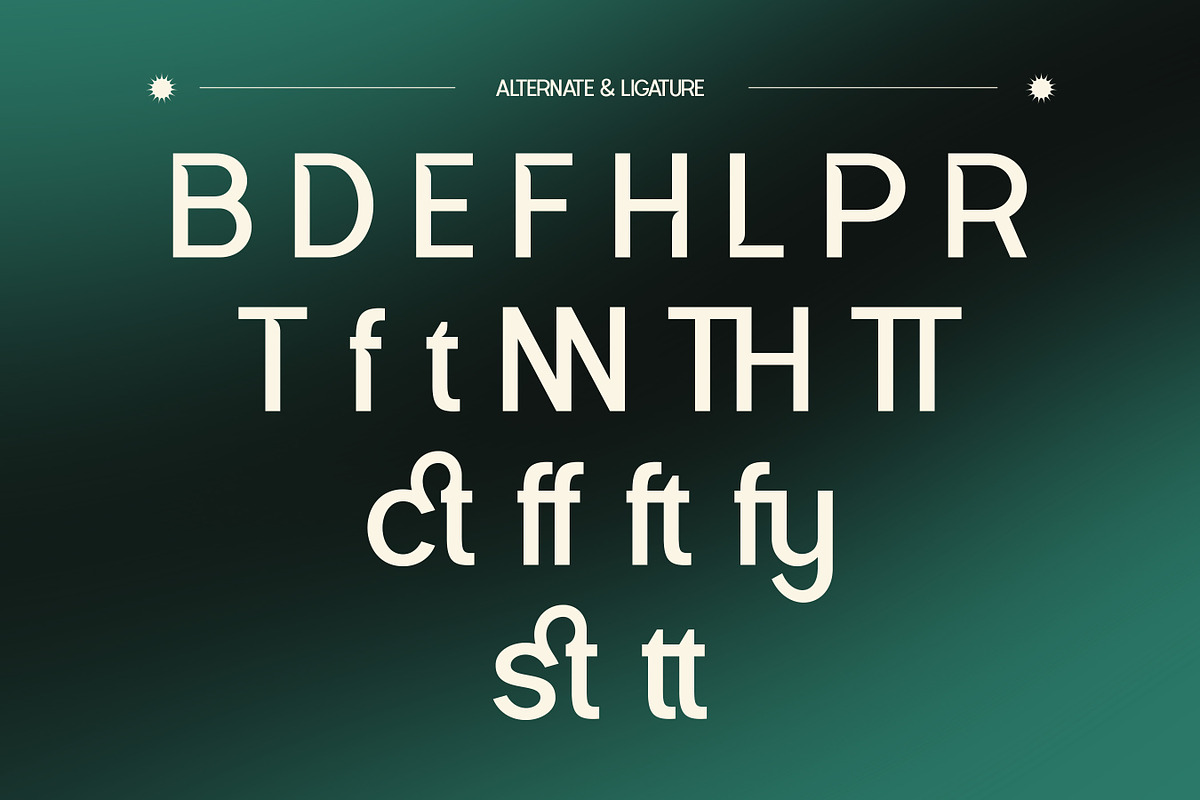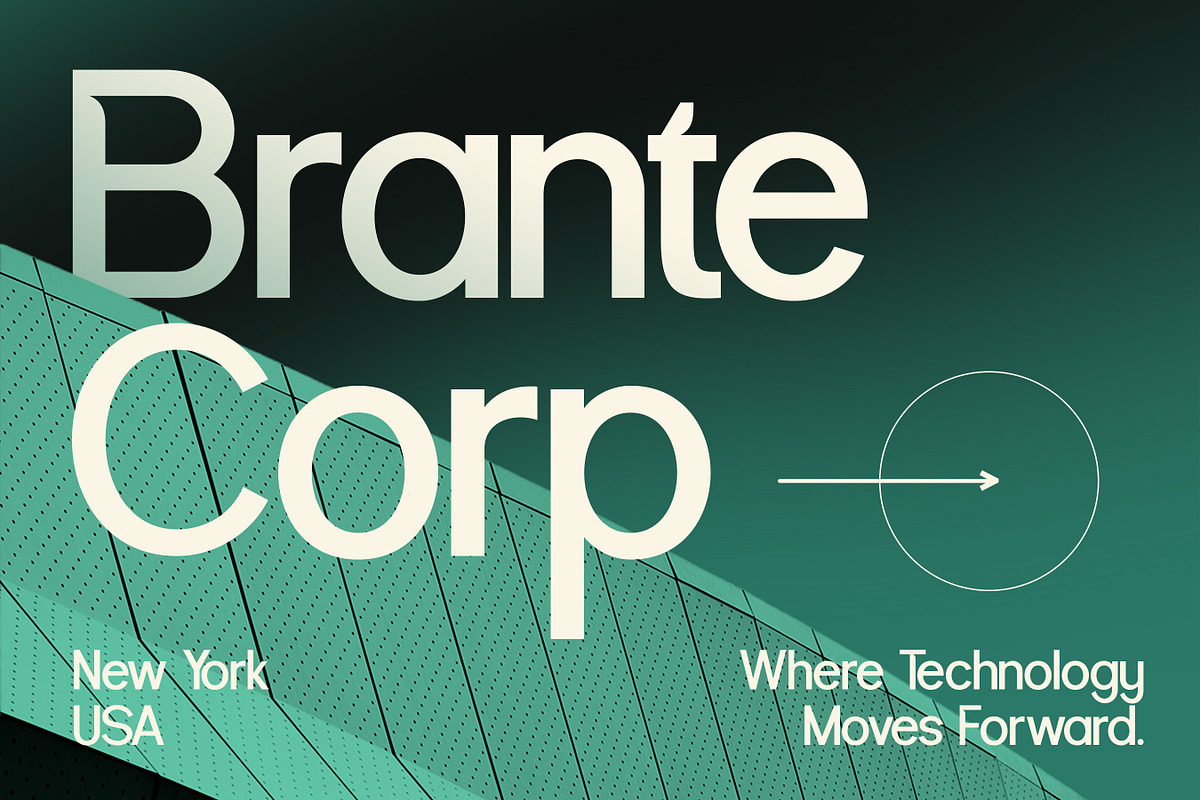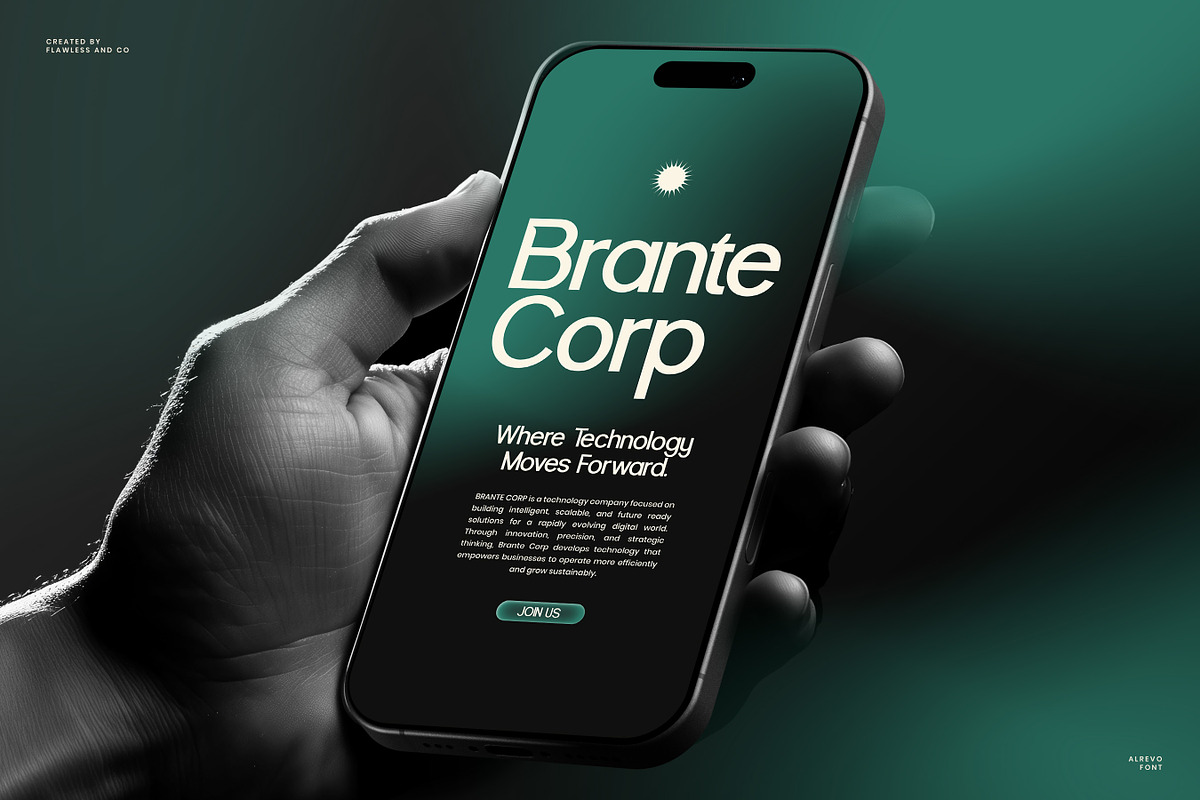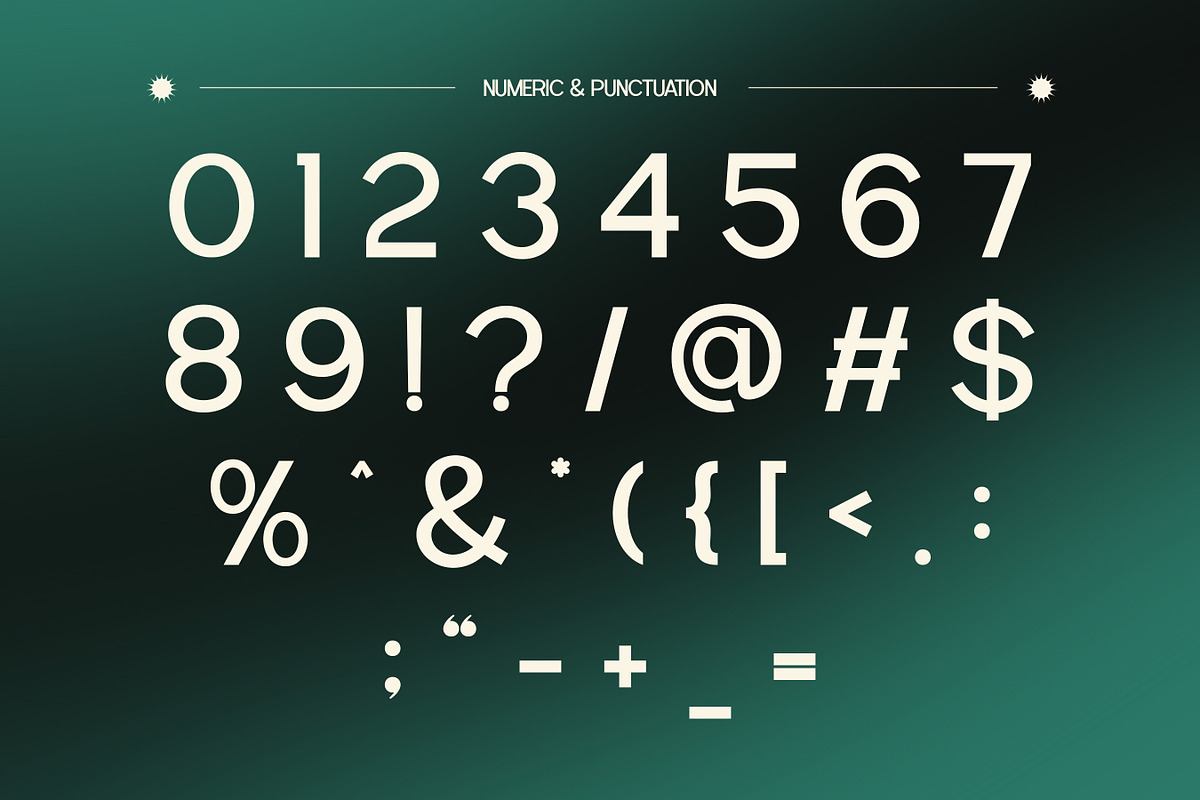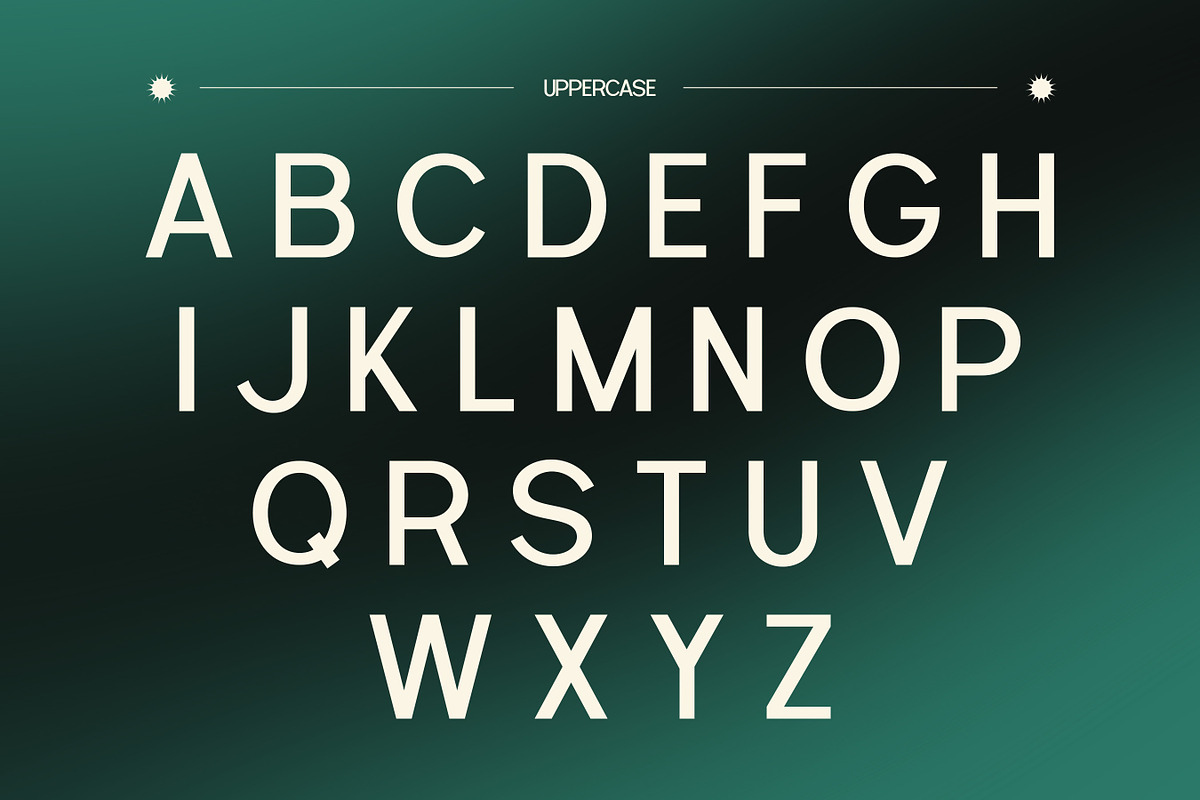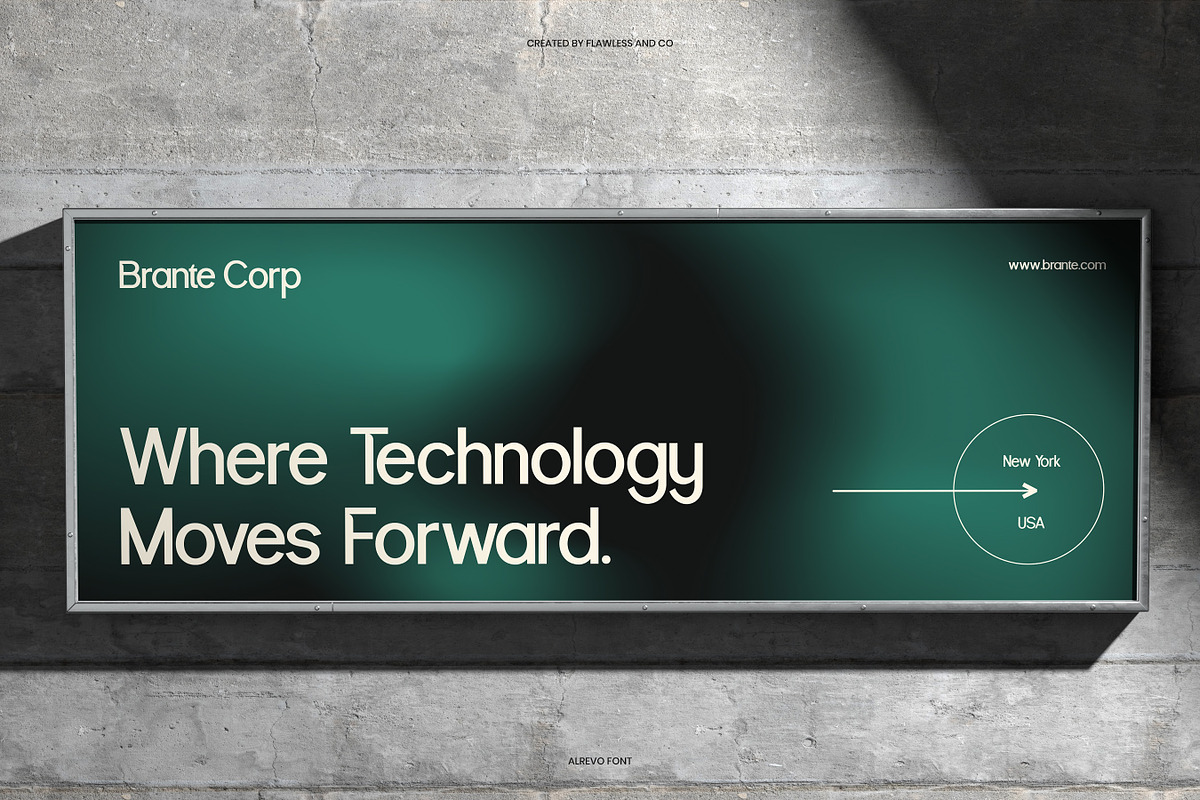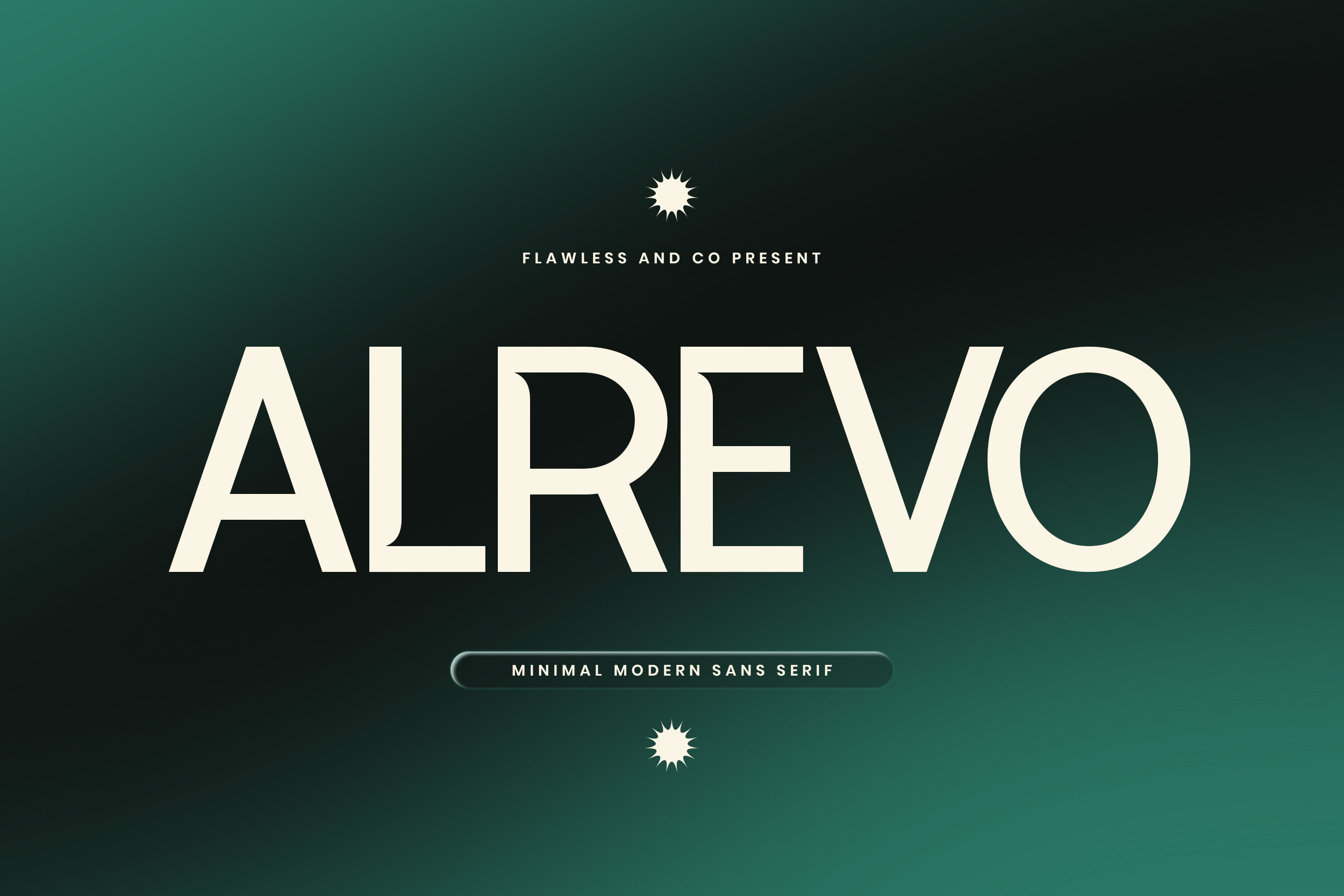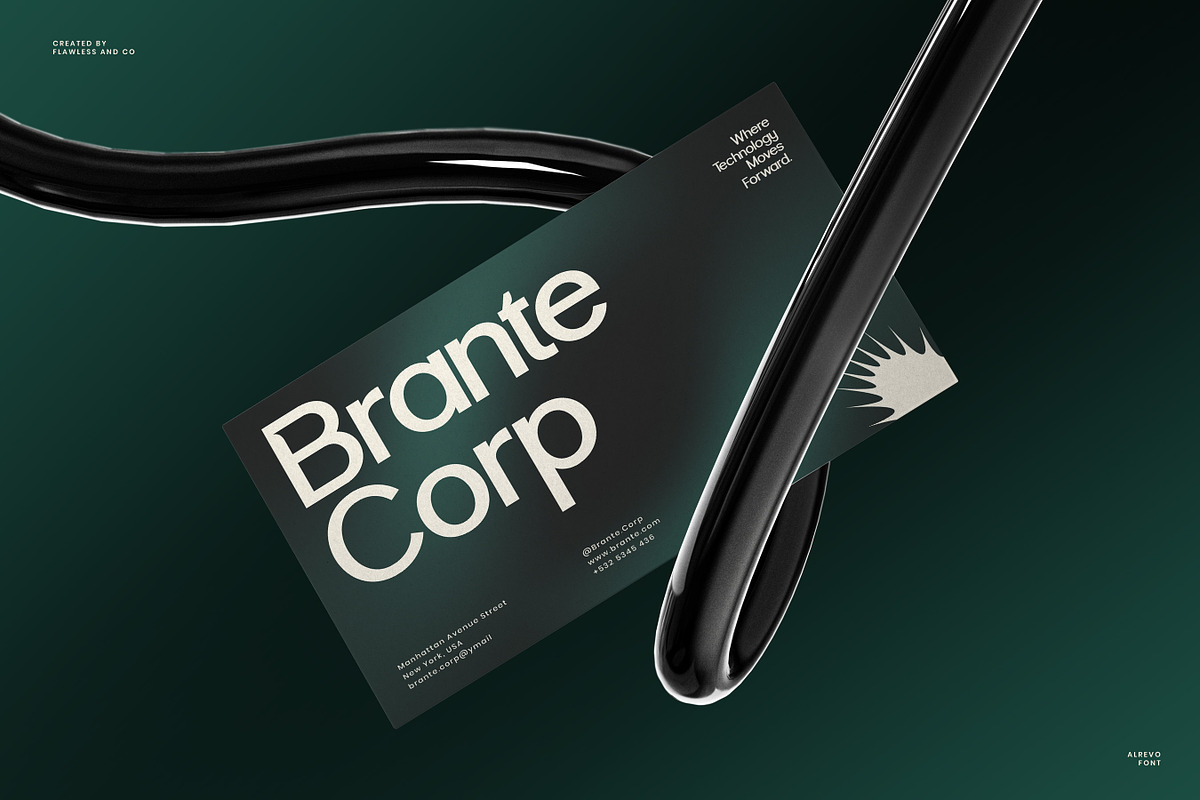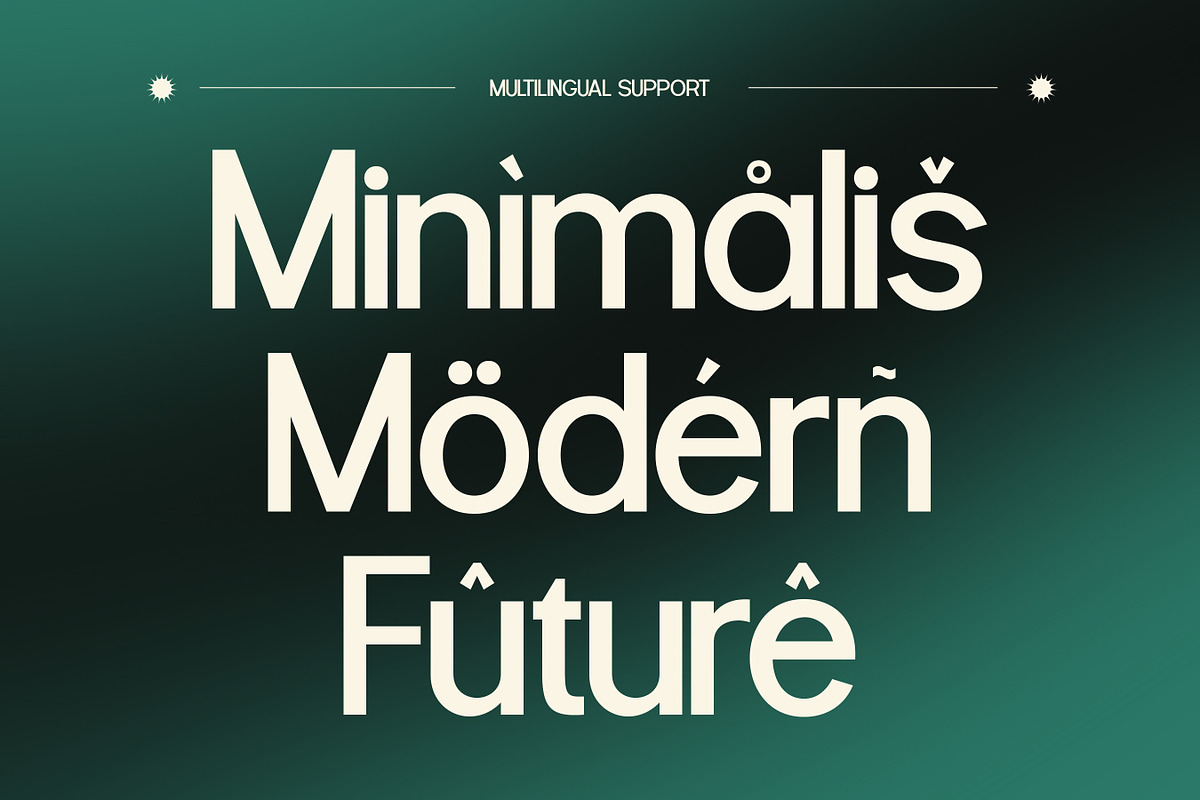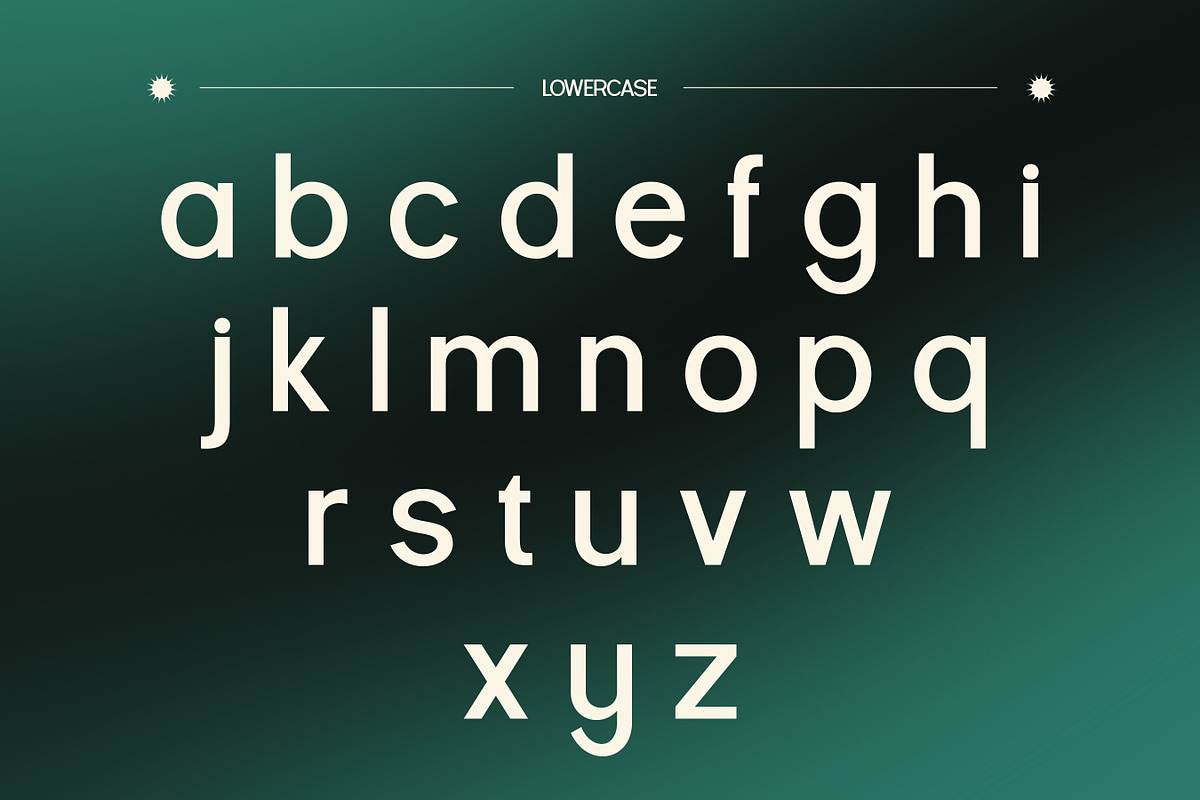
Alrevo - Modern Sans Serif Font
Alrevo is a modern sans serif font designed with a clean, minimal, and contemporary aesthetic. Featuring balanced proportions and smooth geometric forms, Alrevo delivers a refined visual tone that feels confident, versatile, and timeless. Its simplicity allows your message to stand out clearly, making it an excellent choice for both digital and print applications. Created to support modern branding needs, Alrevo works beautifully across a wide range of projects—from bold headlines to clean body text.
Who Should Use Alrevo?
This font is a great choice for UI/UX designers, web designers, and digital creators who prioritize readability and modern aesthetics in interfaces, websites, and mobile applications. In addition, Alrevo works well for marketers, content creators, and publishers looking to create impactful layouts for presentations, social media, advertising materials, and editorial designs with a modern, professional look.
Suitable for:
- Branding & logo design
- Corporate identity and business branding
- Website & UI/UX design
- Mobile app interfaces
- Editorial layouts & digital publications
- Marketing materials & advertisements
- Presentations & corporate documents
- Social media graphics & content design
- Modern posters & clean layouts